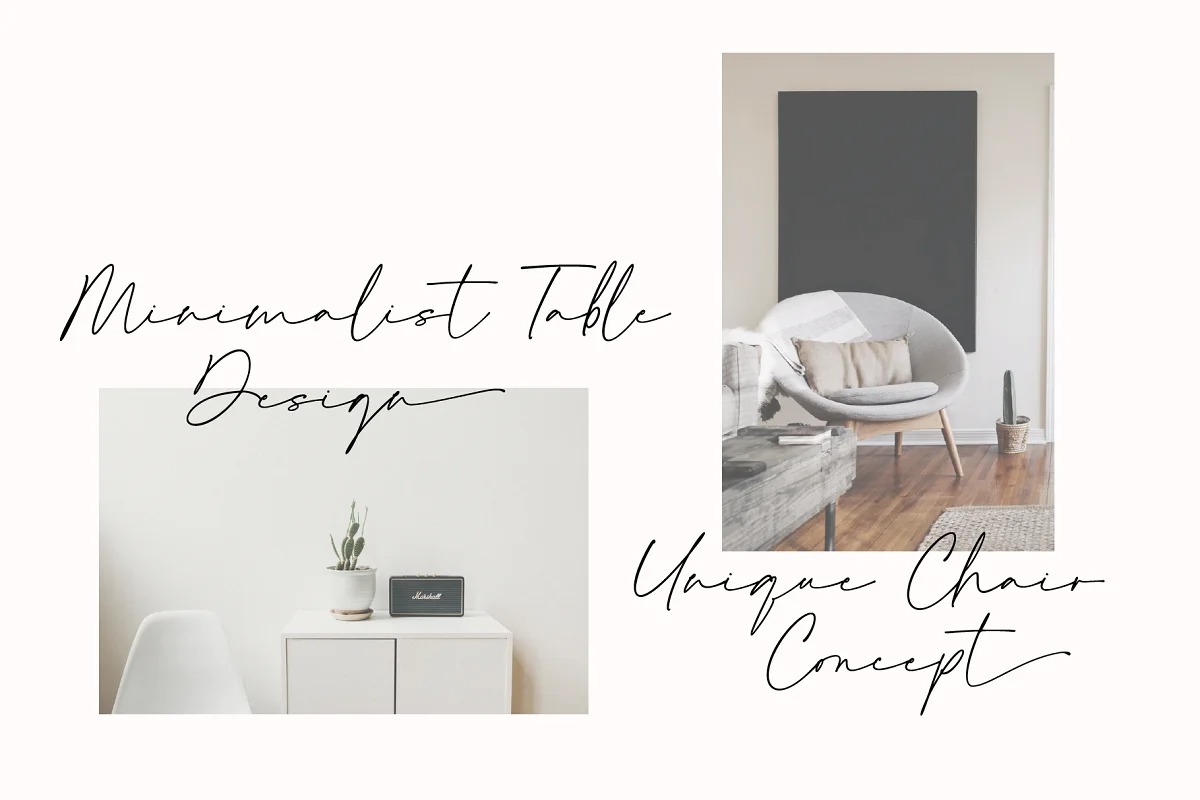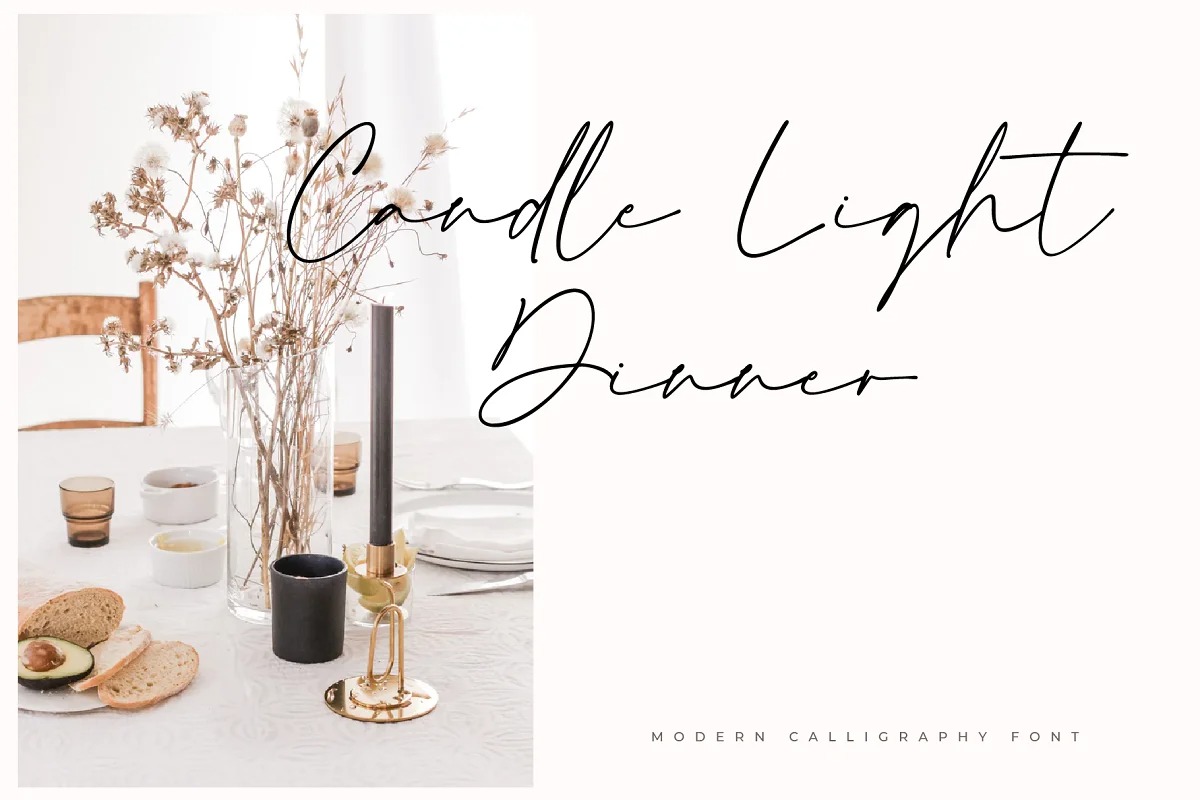
Semethone Handwritten Font
This is charming script typeface that is created suits with human handwriting. The uniqueness is shown within this script. It’s perfect for branding, wedding invitation, card, signature, watermark for photography and many others.
Semethone come with beautiful set of hand lettered uppercase and lowercase, punctuation, multilingual language. This font also equipped with beautiful swashes and ligature which will be perfect for your design project.